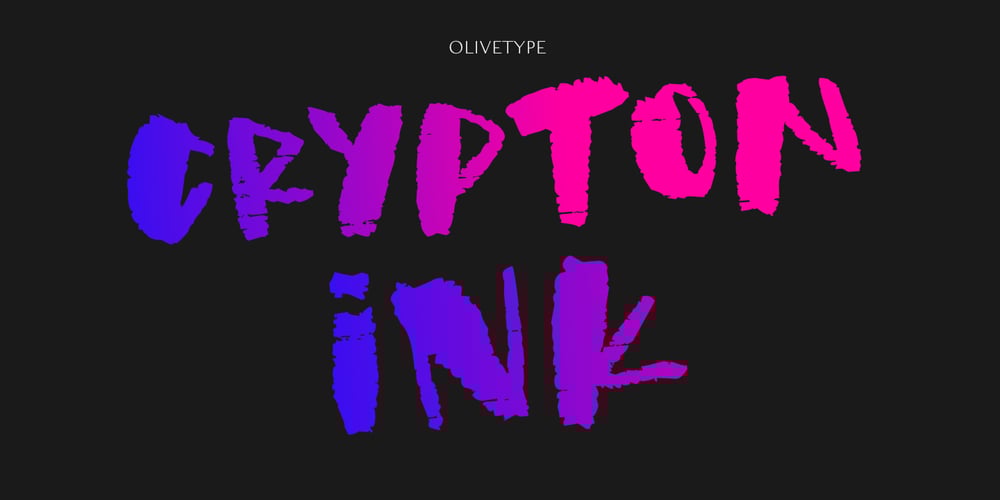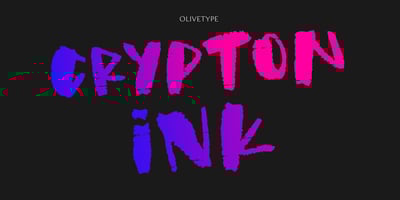
Crypton Ink Font Family was designed by Nurul Hidayani and published by Olivetype. Crypton Ink contains 1 styles and family package options. Crypton Ink is a raw brush typeface. Its cool texture is carefully handcrafted to straight away grab the attention of the viewers. Suitable if use for logos, posters, headlines, brandings, apparel, etc.This font is supporting Multi-Languages, which includes: Afrikaans Albanian Catalan Danish Dutch English Estonian Finnish French German Italian Norwegian Portuguese Spanish Swedish Zulu.Thank you